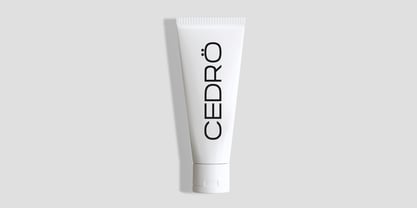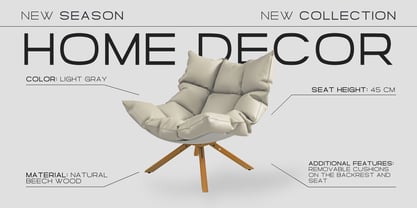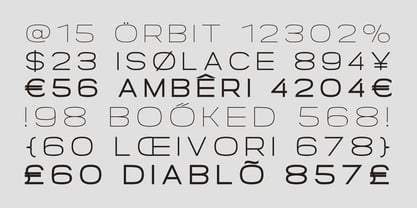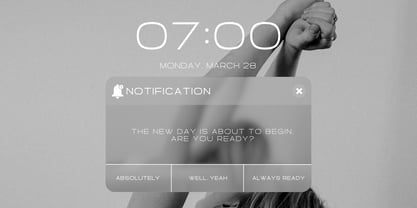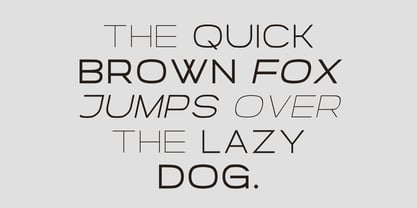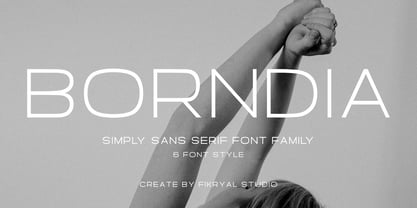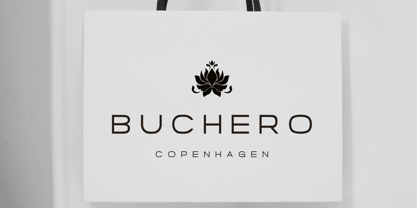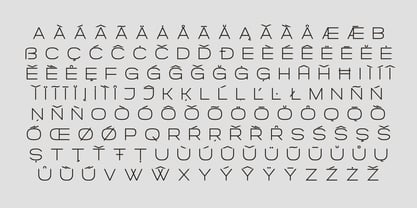
Borndia
by Fikryal
The Borndia Font Family was designed by Muhammad Fikry and published by Fikryal. Borndia contains 6 styles and family package options.
Borndia is a modern sans-serif font family that combines simplicity with versatility. Featuring six styles: Light, Light Italic, Regular, Italic, Bold, and Bold Italic, this font family is perfect for a wide range of design needs, including branding, editorial layouts, web design, and app development. With its clean, minimal design, Borndia adds a polished and professional look to any project.
Whether you’re designing logos, crafting compelling content, or building engaging digital experiences, Borndia delivers the flexibility and aesthetic sophistication you need.
Key Features:
• Six styles: Light, Light Italic, Regular, Italic, Bold, and Bold Italic.
• Extensive multilingual support for global use.
• Ideal for print and digital design projects.
Transform your creative projects with Borndia – the simply elegant sans serif font family.